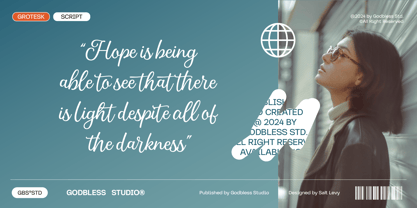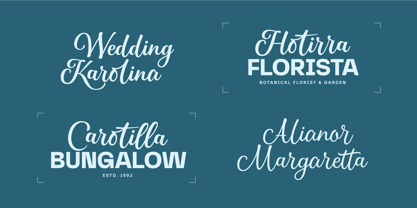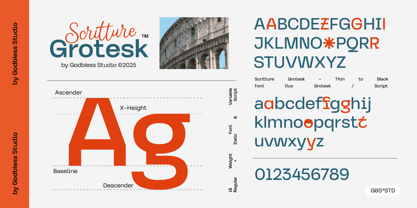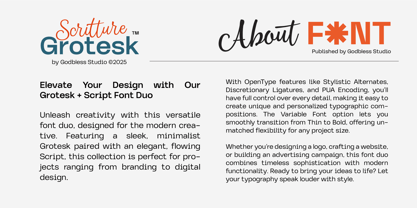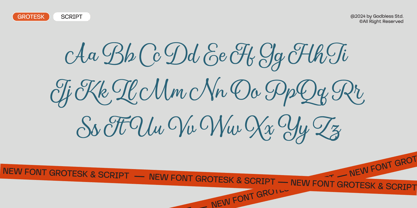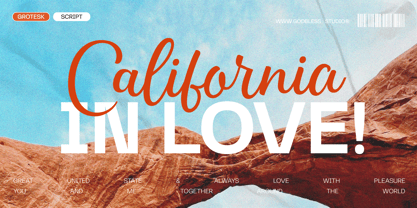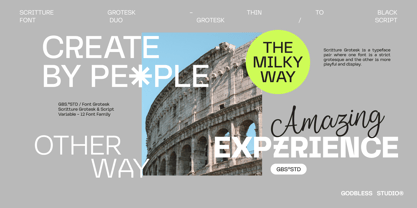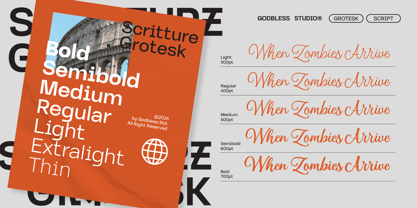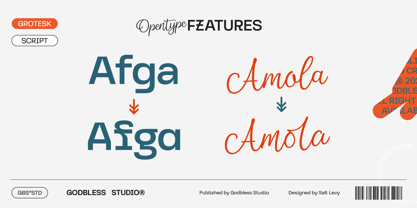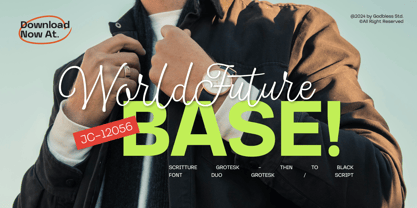
Scritture Grotesk
by Godbless Studio
The Scritture Grotesk Font Family was designed by Heri Juniawan and published by Godbless Studio. Scritture Grotesk contains 12 styles and family package options. More about this family
Elevate Your Design with Our Grotesk + Script Font Duo, Scritture Grotesk
Unleash creativity with this versatile font duo, designed for the modern creative. Featuring a sleek, minimalist Grotesk paired with an elegant, flowing Script, this collection is perfect for projects ranging from branding to digital design.
With OpenType features like Stylistic Alternates, Discretionary Ligatures, and PUA Encoding, you'll have full control over every detail, making it easy to create unique and personalized typographic compositions. The Variable Font option lets you smoothly transition from Thin to Bold, offering unmatched flexibility for any project size.
Whether you're designing a logo, crafting a website, or building an advertising campaign, this font duo combines timeless sophistication with modern functionality. Ready to bring your ideas to life? Let your typography speak louder with style.